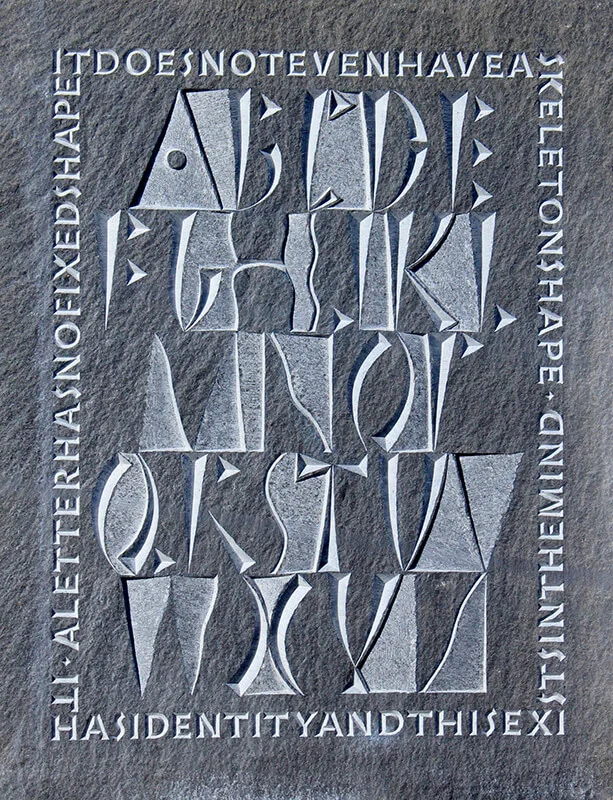
Blue Moon Alphabet by ANNET STIRLING
Dual Text Alphabet 2
The central alphabet is the alphabet I used on an iconic slate called ‘New Blue Moon’. It is based on sketching the rock face, near our quarry in Dorset, with its loose rubbly bits and definite linear construction. The letters are carved in at different angles to mimic the in and out of the cliff face. The text around the alphabet is by Nicolete Grey and is carved in my Wolpe influenced sans serif. The words explain why you can still read the alphabet even though it is pretty abstract.
Burlington Grey flame textured slate 48 x 63 cm.